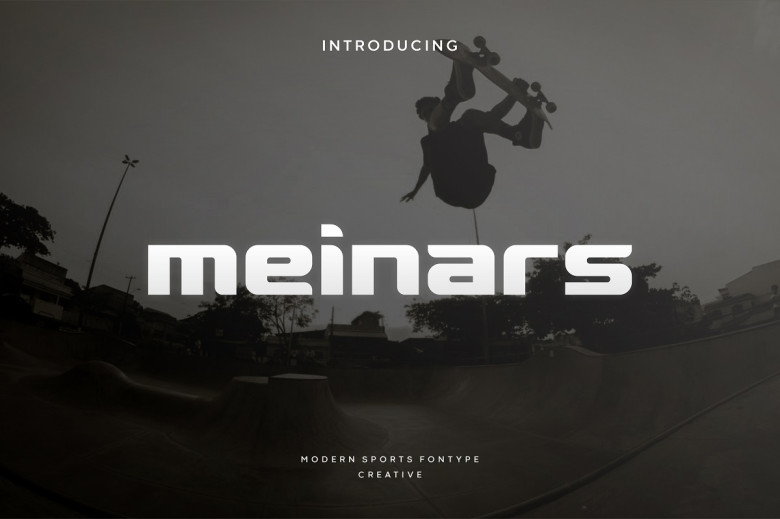
Meinars Font
Meinars was created with sports designers and their usages of type in mind. Meinars is perfect for sports, apparel, promos and large headline uses. It’s versatility allows you to brand each sport and is built with jersey placement in mind, so you could utilize Meinars on each sports’ jersey to really tie things together!
Meinars Display Font